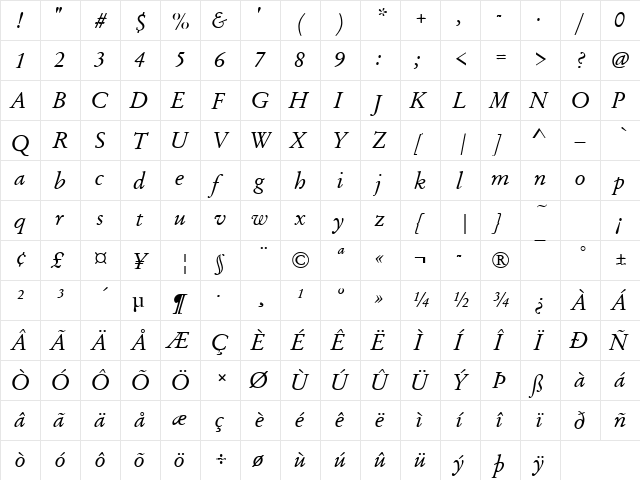
Garamond Becker No2 Italic
Design Context for Garamond Becker No2 Typeface
Garamond Becker No2 offers clean, dependable letterforms without strong stylistic allegiance, making it a practical choice for designers who need flexibility. Its italic angle brings a sense of urgency and motion to the letterforms.
Pro Tip: Try Garamond Becker No2 for annotation and caption copy alongside an upright companion — the contrast in angle creates a dynamic but ordered typographic system.